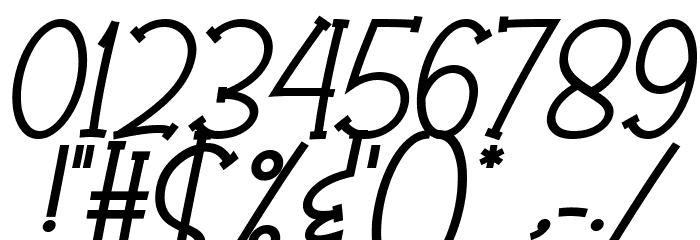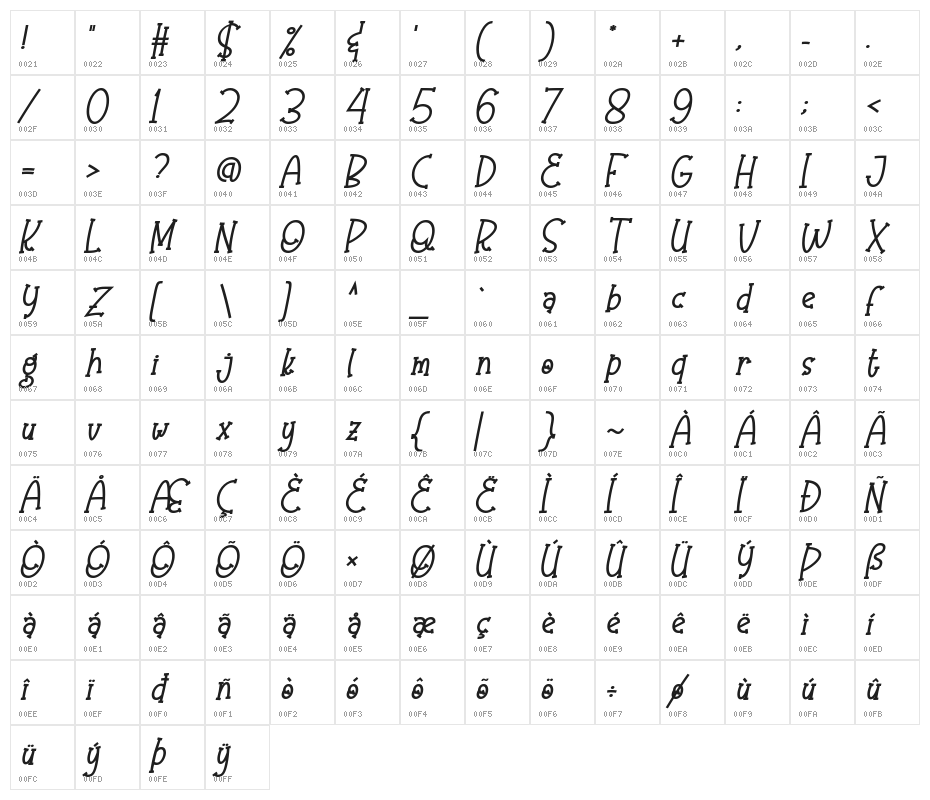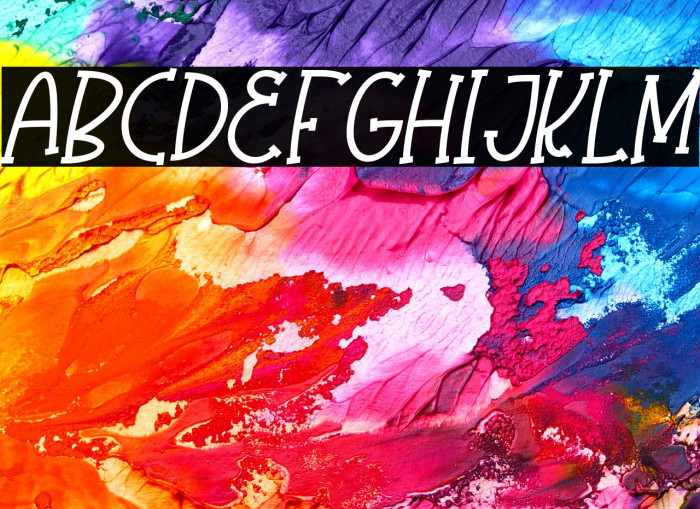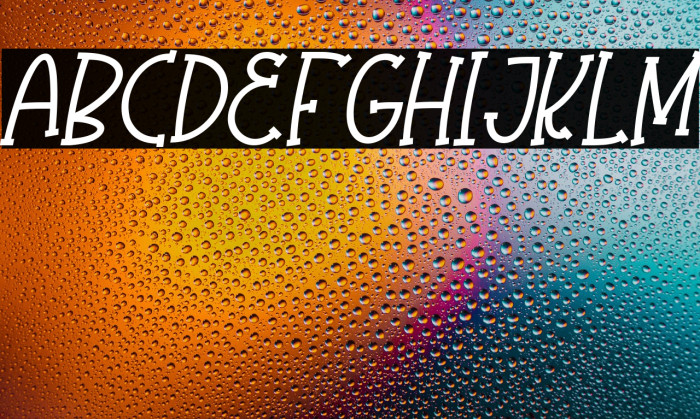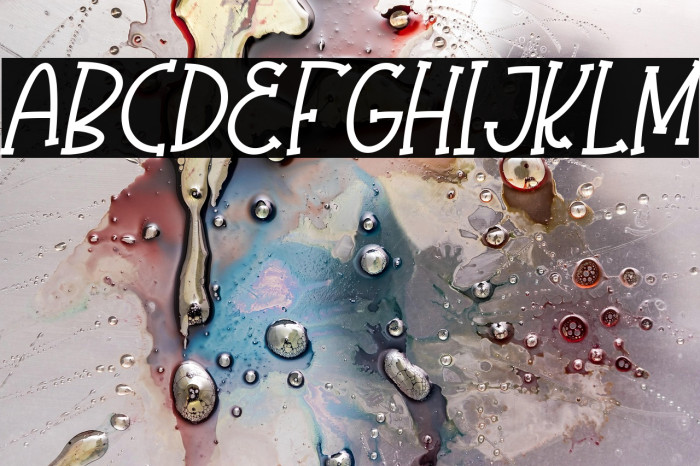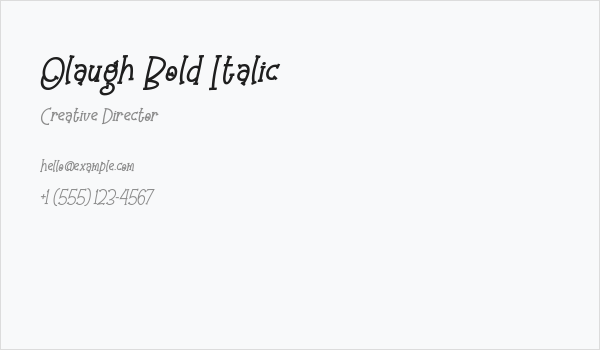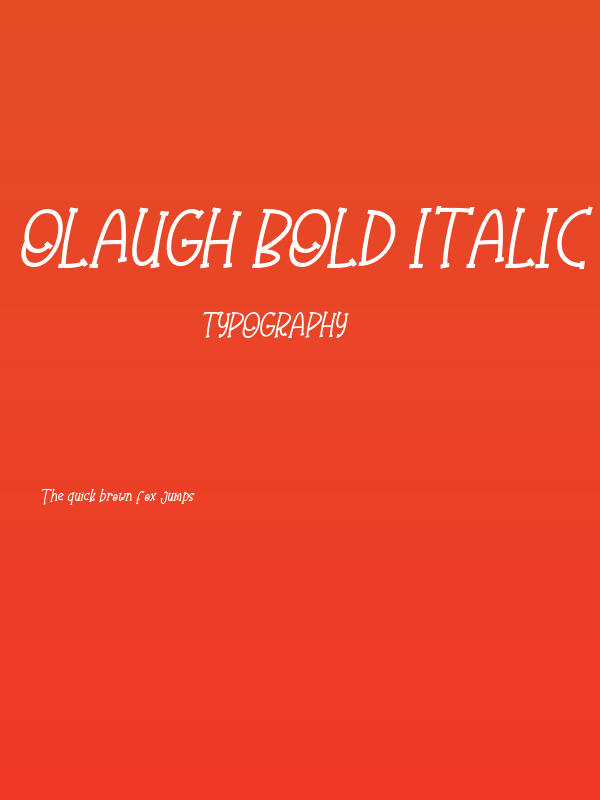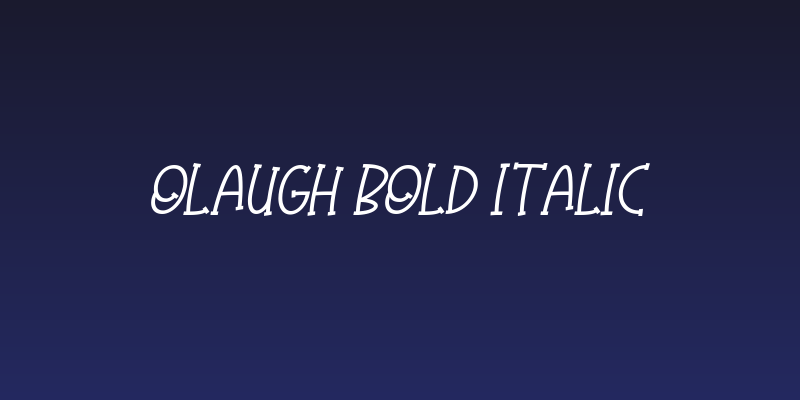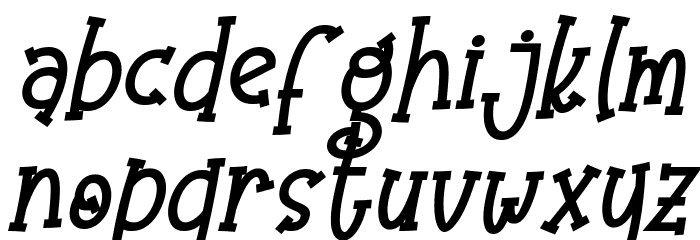
Olaugh Bold Italic Font
Olaugh Bold Italic Description
This font features a playful and dynamic style, characterized by its bold and italicized form. The letters have a handwritten, casual appearance with a slight slant, giving them a lively and energetic feel. The strokes are thick and consistent, providing a strong visual impact. The characters are well-spaced, ensuring readability while maintaining a unique, artistic flair. This font includes a full set of uppercase and lowercase letters, numbers, and a variety of special characters, making it versatile for various design needs.
| Proposed Projects | Ideal for creative projects such as posters, invitations, branding, and social media graphics where a fun and energetic vibe is desired. |